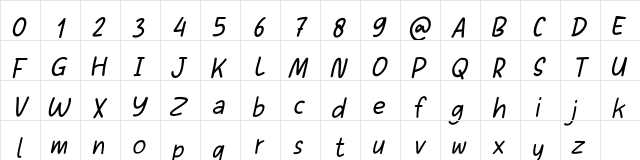
Sans Andreas Italic
Design Context for Sans Andreas Typeface
Sans Andreas takes a measured approach to typography — its balanced proportions and neutral character make it a reliable workhorse for both digital and print work. The dynamic lean of this cut emphasises speed and emphasis in any layout.